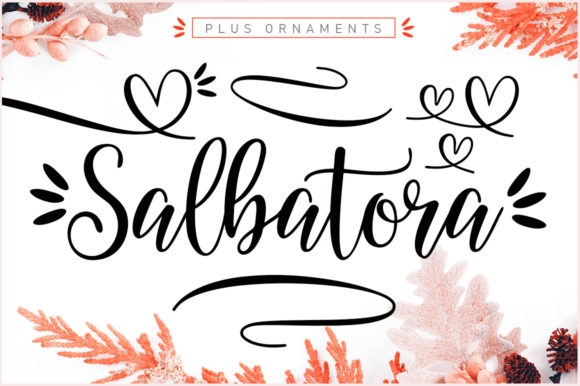
Behold Salbatora, a script font of unparalleled beauty and distinction, ready to transform your design projects into masterpieces of visual eloquence. Crafted with meticulous attention to detail by the esteemed Area Type, Salbatora draws inspiration from timeless typography, harmoniously blending classic aesthetics with a refreshing contemporary touch.
Unleash the allure of Salbatora's captivating glyphs, each meticulously designed to evoke a sense of elegance and sophistication. Its graceful curves and sweeping strokes dance across the page, leaving a trail of refined aesthetics in their wake. Whether gracing the headlines of your web designs or adding a touch of allure to your print projects, Salbatora commands attention with its undeniable presence.
Embrace the versatility of Salbatora, a font that effortlessly adapts to a myriad of design endeavors. Its remarkable adaptability shines in headlines of all sizes, where its bold and commanding presence captivates the reader's gaze. Yet, Salbatora's charm extends beyond mere headings, extending its influence to blocks of text with both maximum and minimum variations. Experience the seamless transition as Salbatora gracefully accommodates your varying text lengths, maintaining its exquisite appearance throughout.
Venture into the realm of moving images with Salbatora as your steadfast companion. Its dynamic essence seamlessly integrates into the world of animation, imbuing your videos and presentations with a captivating aura. Salbatora's captivating presence transcends the digital realm, extending its influence to the tangible world of print. Whether adorning brochures, posters, or business cards, Salbatora leaves an indelible impression, elevating your designs to new heights of sophistication.